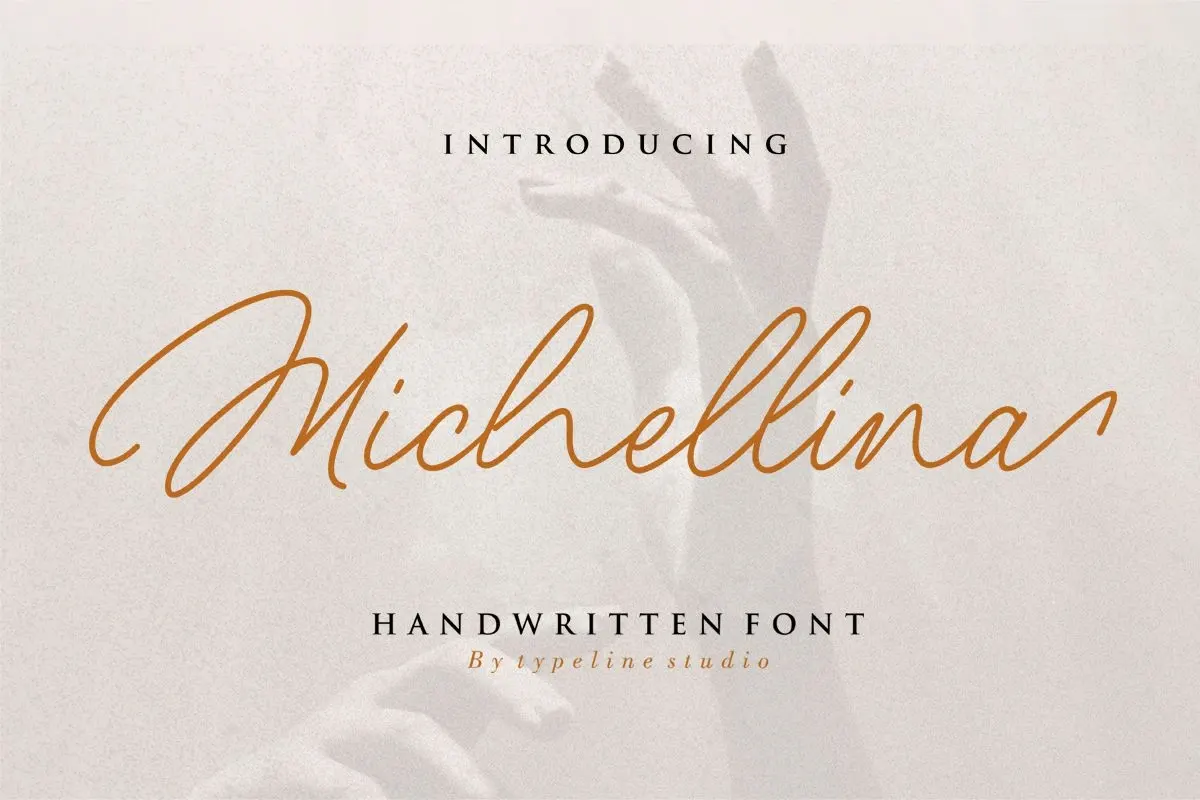
Chic, elegant, and effortlessly personal, Michellina Handwritten Font Free Download is a modern script typeface that brings a handwritten touch to your designs. Perfect for wedding invitations, social media posts, personal branding, logos, and lifestyle blogs, Michellina delivers charm and sophistication with every curve.
Its flowing lines and natural letterforms create a soft, graceful aesthetic—ideal for projects that need a warm and feminine feel. The font includes ligatures and stylistic alternates, giving you the creative freedom to craft beautifully customized typography.